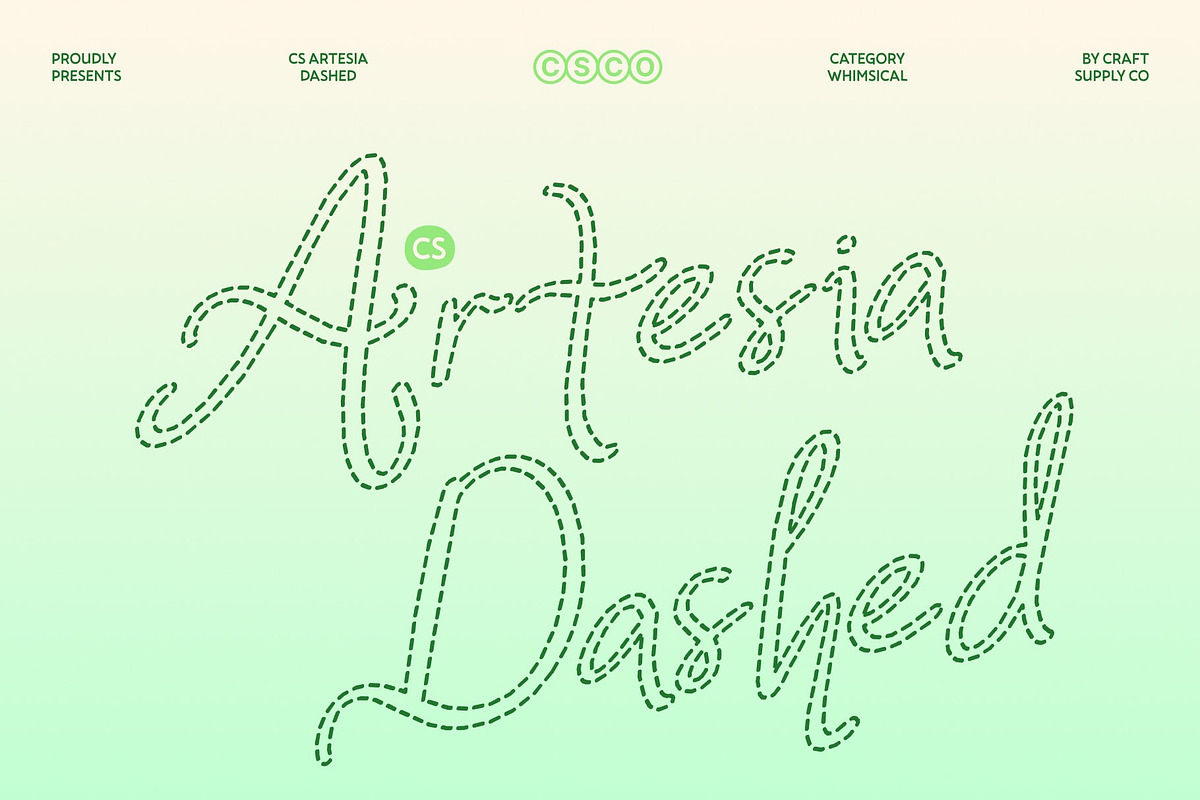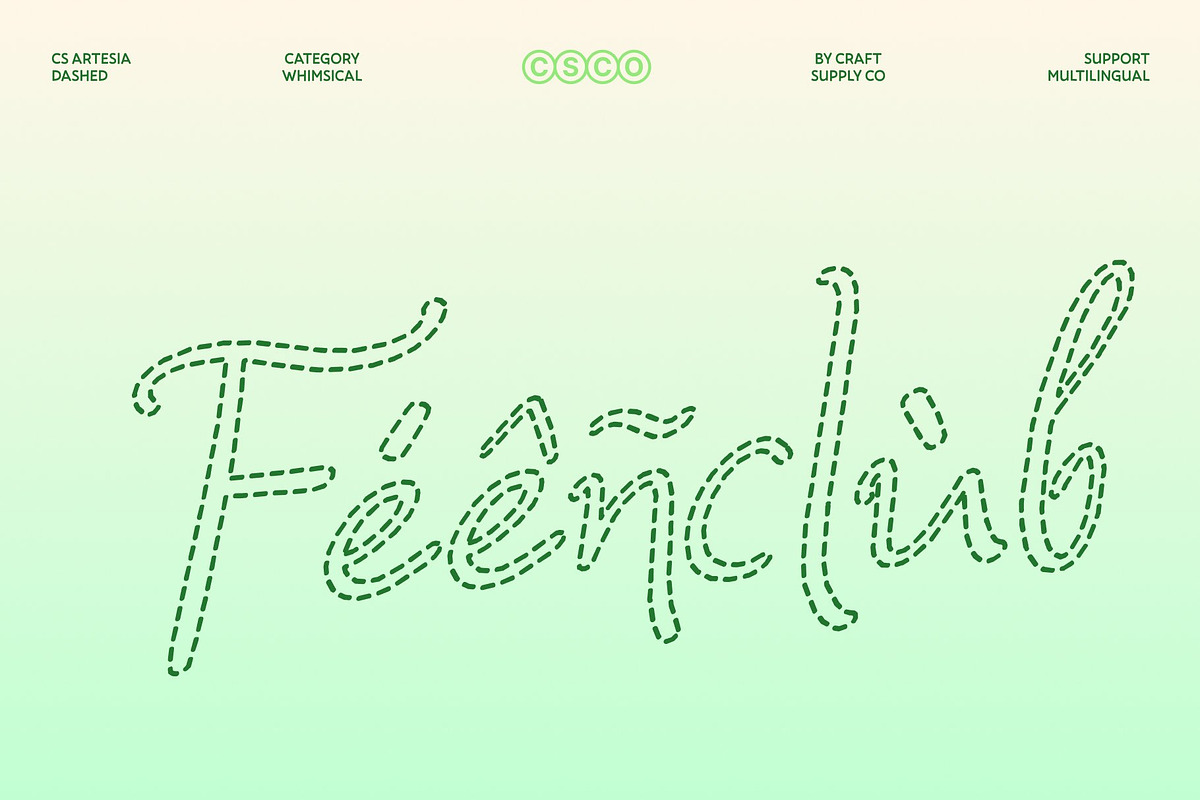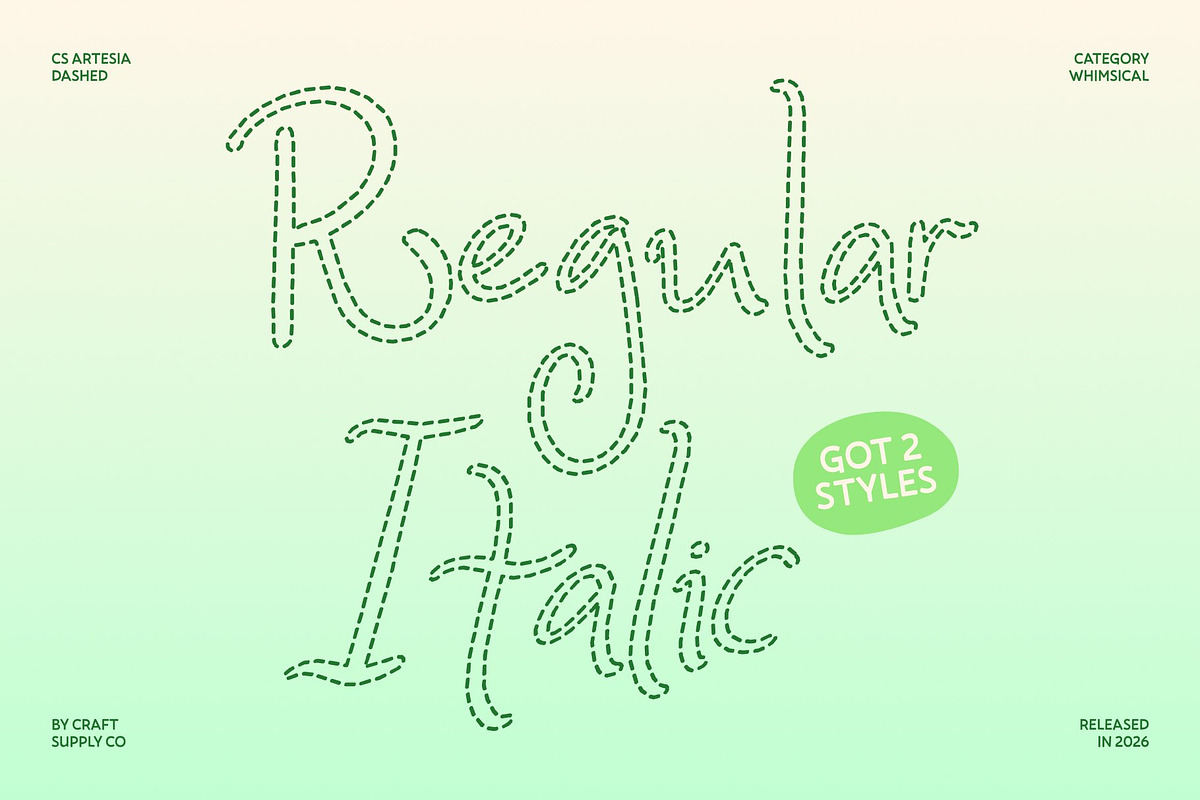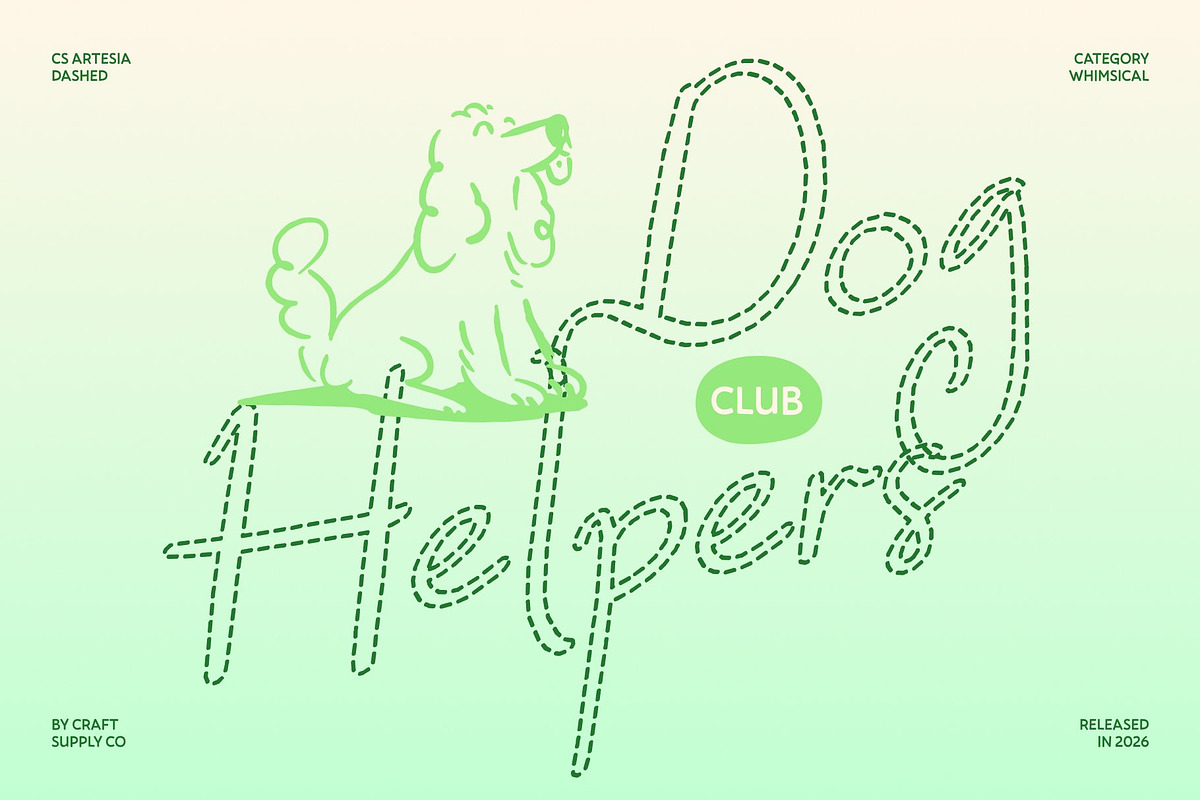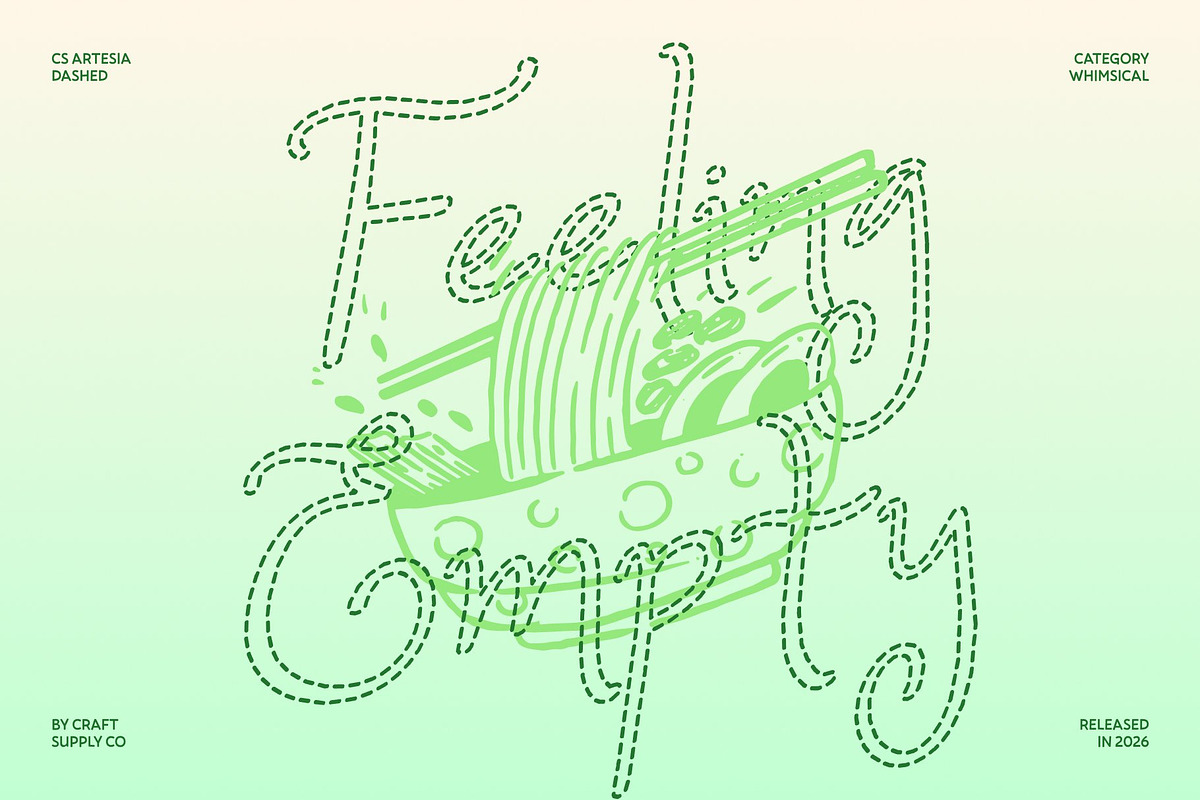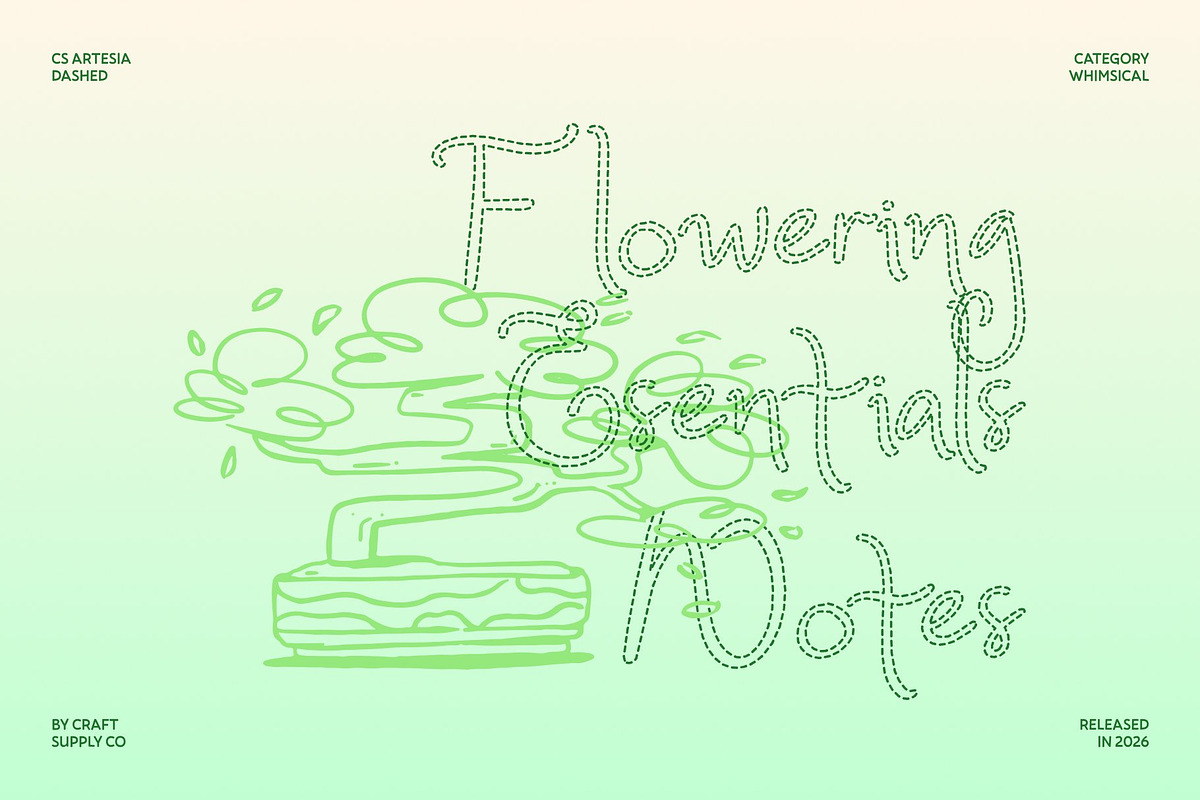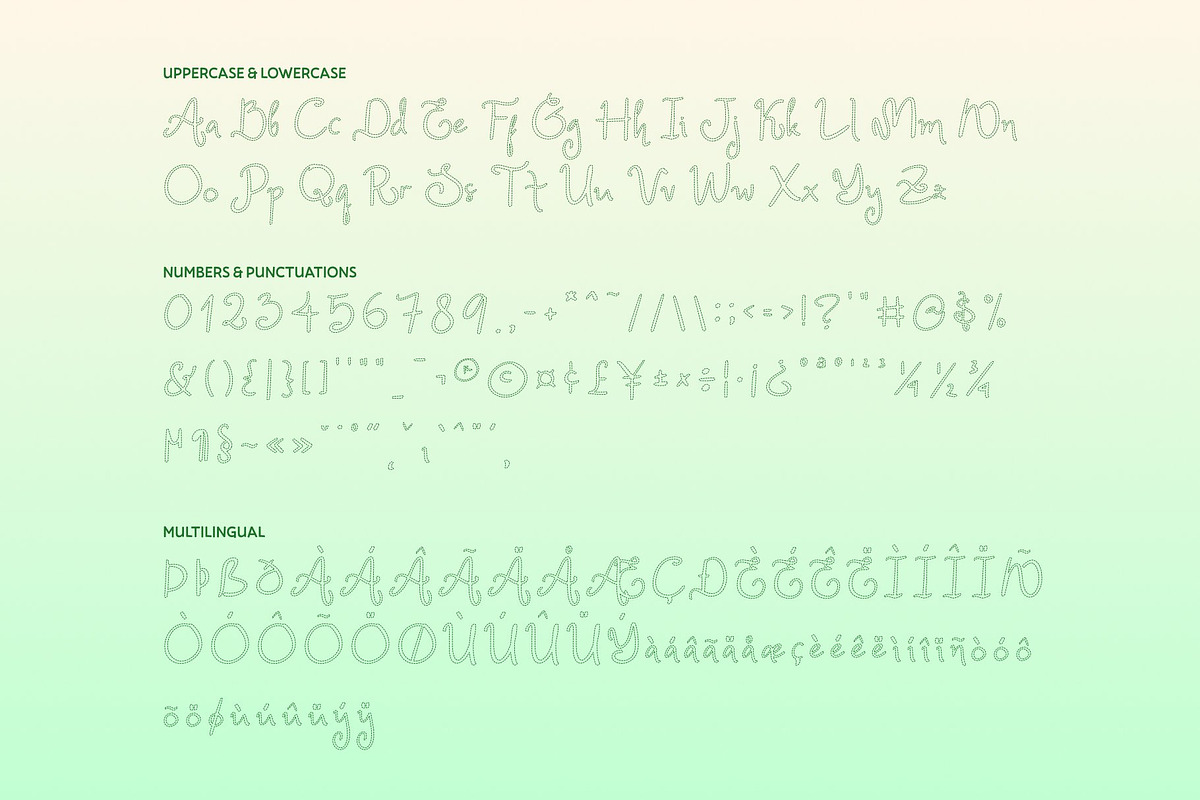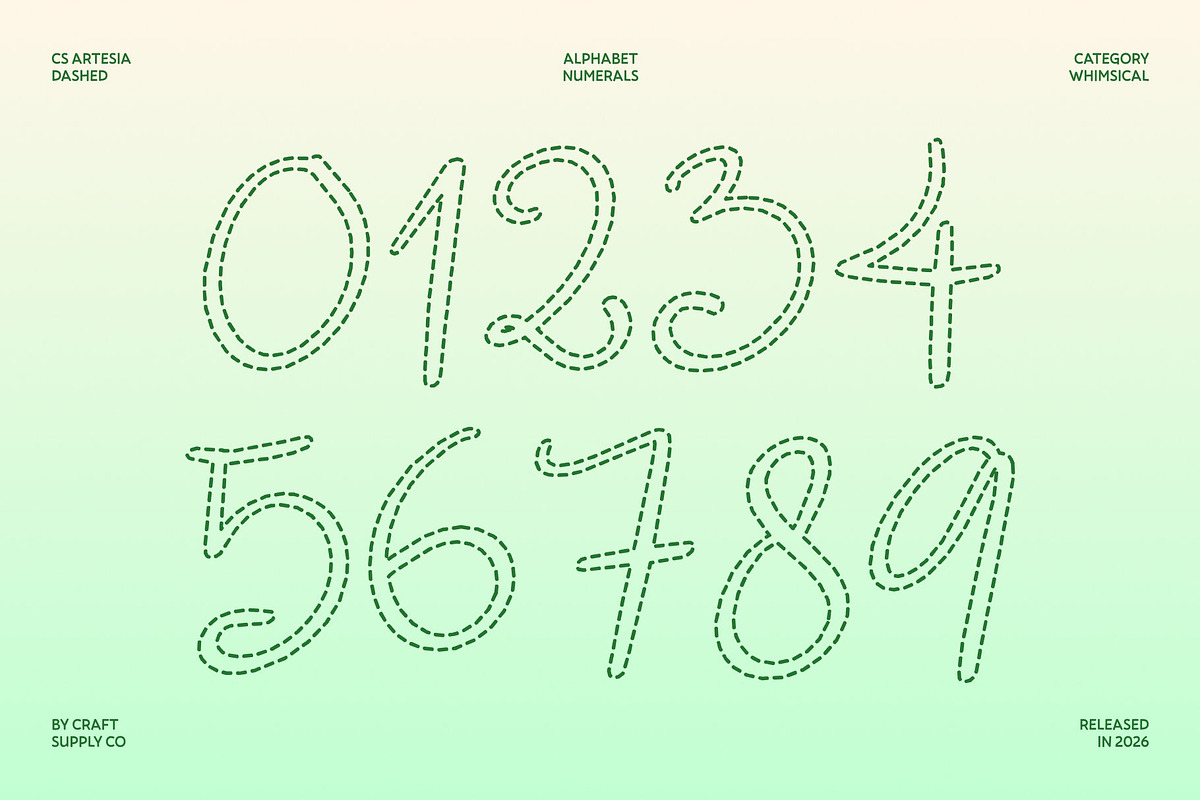
CS Artesia Dashed
CS Artesia Dashed – Handcrafted Beauty with Whimsical Charm
Whimsical Handwritten Style with Expressive Flair This is a whimsical handwritten font that captures the beauty of hand-drawn creativity through delicate dashed strokes. Every line flows gracefully, creating a warm and expressive rhythm that feels personal, artistic, and refined. Its playful yet elegant personality makes it perfect for designs that celebrate individuality and charm.
Graceful Curves for Elegant Expression The font’s defining character comes from its smooth, flowing curves and harmonious letter connections. The dashed texture adds lightness and visual interest while maintaining readability and balance. This graceful construction brings a sense of sophistication and emotion to every word.
Handcrafted Detail for Authentic Personality Inspired by traditional hand lettering, this font embraces the imperfections and warmth of handmade design. The dashed strokes enhance its artisanal quality, giving typography a soft, intimate feel that stands apart from polished digital scripts.
Perfect for Fashion, Weddings, and Creative Branding From fashion editorials and boutique logos to wedding invitations and artistic posters, this font adapts beautifully to stylish and expressive projects. Its whimsical elegance ensures your designs feel creative, personal, and timeless.